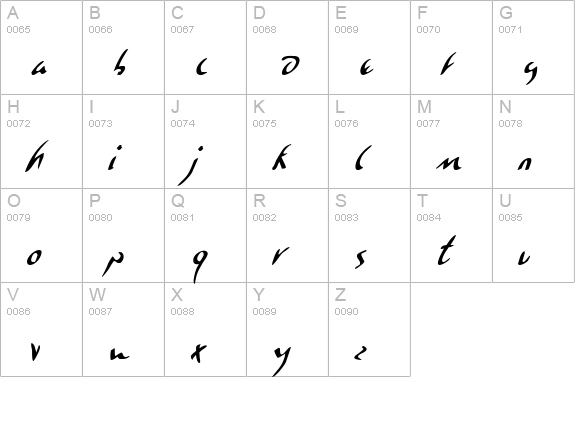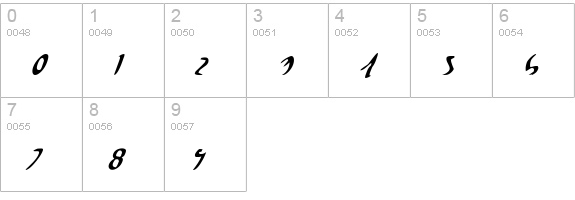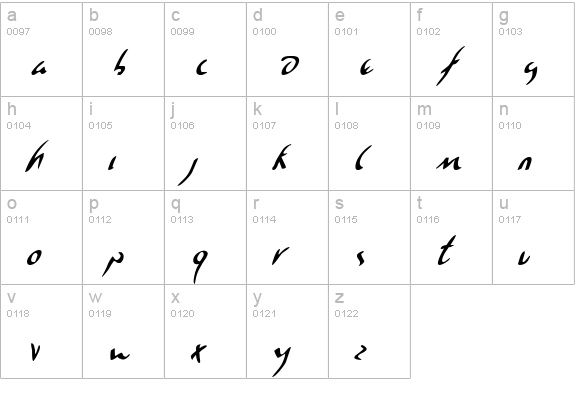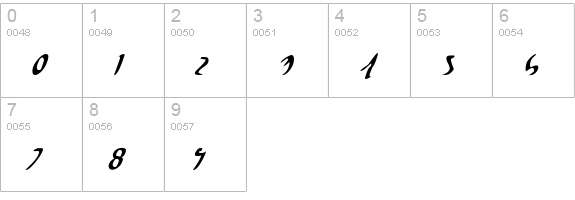
Eagleclaw Condensed Italic is a distinctive, condensed-width, italic variant in the Eagleclaw typeface family \xE2\x80\x94 well suited to design and typography projects.
Eagleclaw Condensed Italic font is a sleek and modern typeface that exudes elegance and sophistication. Its slanted design adds a touch of dynamism and style to any project, making it perfect for branding, editorial design, and more. The condensed style of the font allows for efficient use of space while maintaining readability and impact. What sets Eagleclaw Condensed Italic font apart is its unique blend of sharp angles and smooth curves, creating a harmonious balance that catches the eye and leaves a lasting impression. Whether you're designing a logo, a website, or a poster, this font will elevate your work to new heights. And the best part? Eagleclaw Condensed Italic font is available for free download at FontsMarket.com. So go ahead and enhance your designs with this versatile and stylish typeface today!